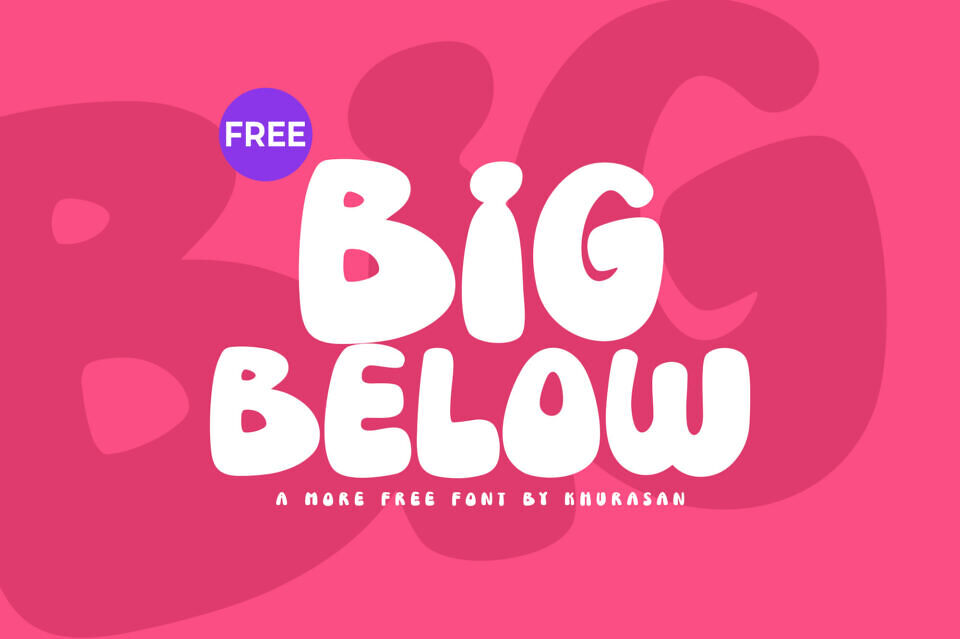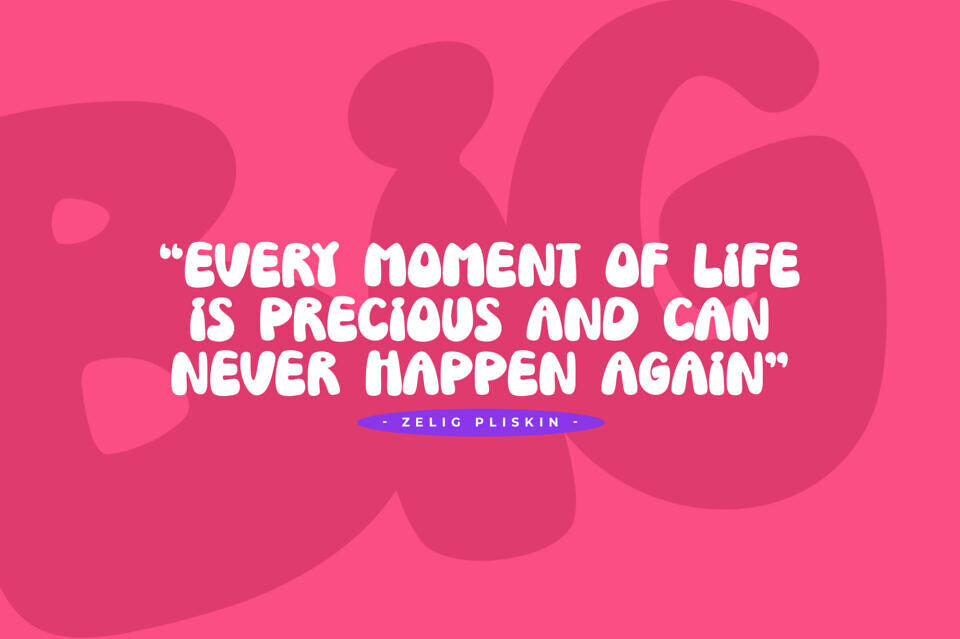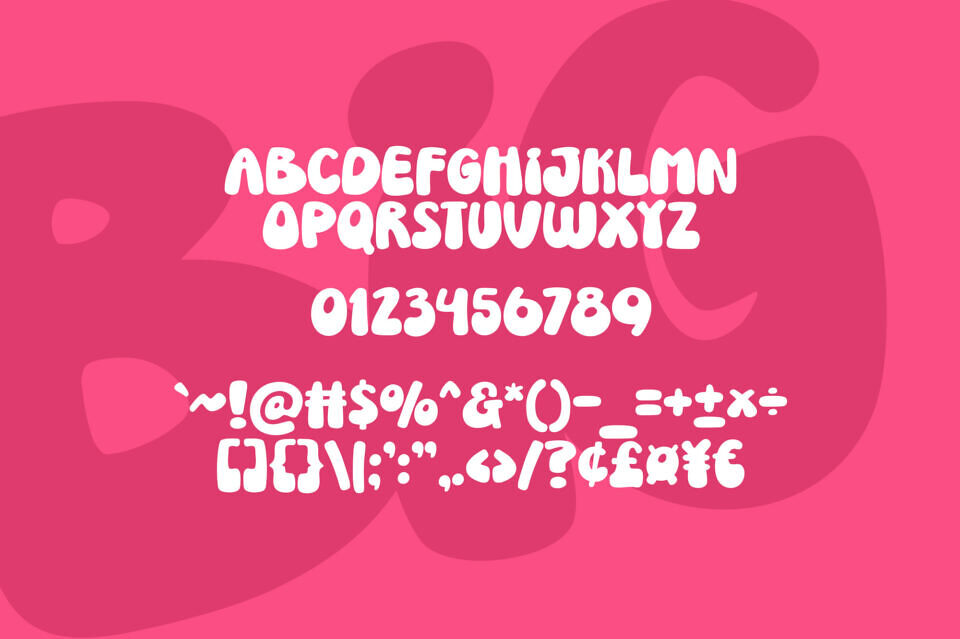
Bigbelow is a bold, playful display font by Khurasan that bursts with a fun, comic-inspired energy. Featuring ultra-thick, rounded letterforms and a charmingly irregular, hand-drawn bounce, it delivers maximum visual impact.
Complete with uppercase letters, numbers, punctuation, and multi-currency support, this eye-catching typeface is perfect for vibrant branding, children’s designs, apparel, food packaging, and any project that needs a friendly, heavy-set personality.